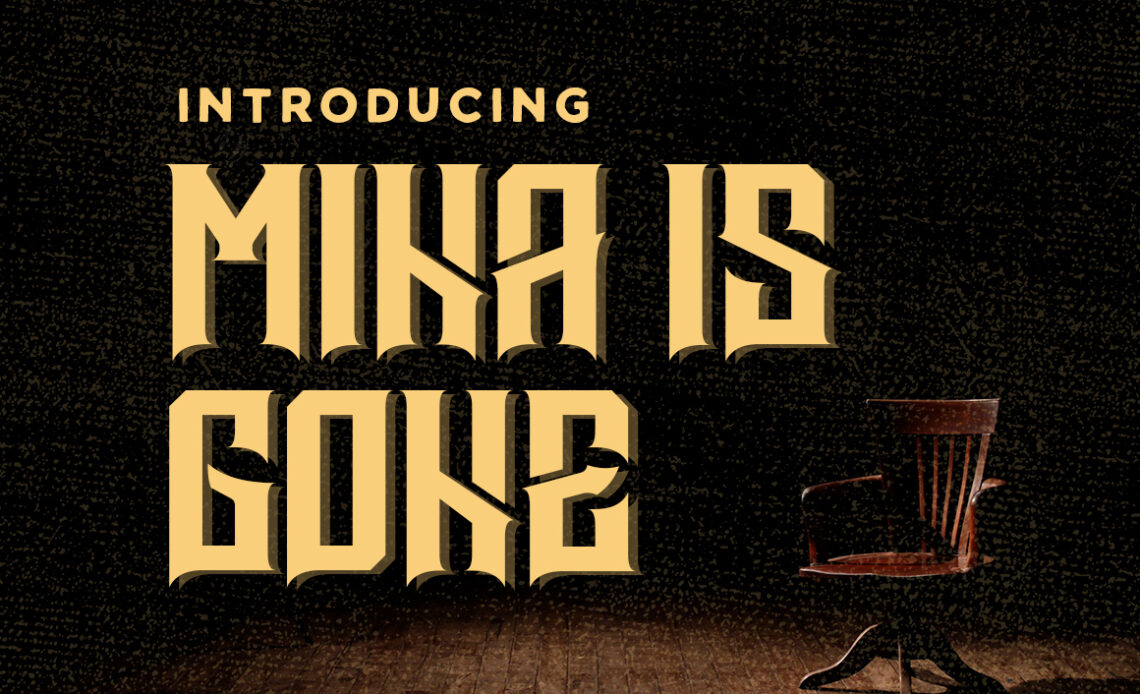
Meet Mina is Gone, the rebellious blackletter stencil font crafted by Vladimir Nikolic, designed to awaken your creative spirits and bring a touch of boldness to your designs. With its sharp edges, inked textures, and a captivating presence, this font is guaranteed to make an unforgettable impression.
Unleash your inner artist and embrace the charismatic nature of Mina is Gone. Let its distinct style command attention and leave a lasting impact on your audience. Its audacious presence makes it the perfect choice for headlines, logos, or any project that demands an air of authority and strength.
Whether you're a designer seeking to create striking visuals or a blogger looking to captivate your readers, Mina is Gone is your ultimate weapon of choice. Its versatility allows it to effortlessly adapt to a wide range of projects, adding an edgy touch to posters, social media graphics, or even merchandise.
Step into the realm of visual allure with Mina is Gone and witness the transformation of your designs. Its dual style options offer you the flexibility to experiment and create designs that resonate with both classic and contemporary tastes. Whether you prefer a traditional blackletter aesthetic or a more modern stencil look, Mina is Gone has got you covered.
Don't settle for ordinary fonts. Choose Mina is Gone and ignite your imagination. Its bold personality and relentless spirit will elevate your designs to new heights, ensuring that your message is heard loud and clear.